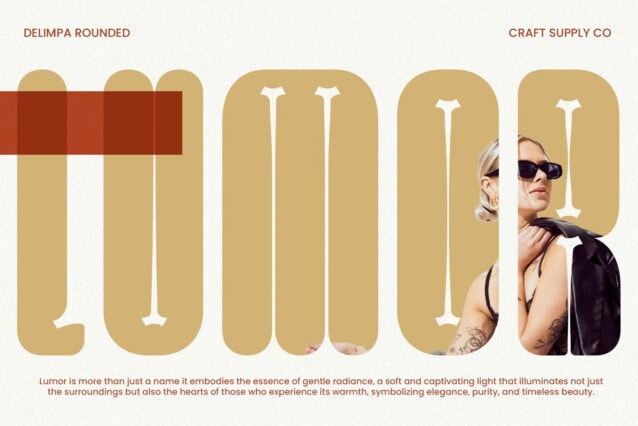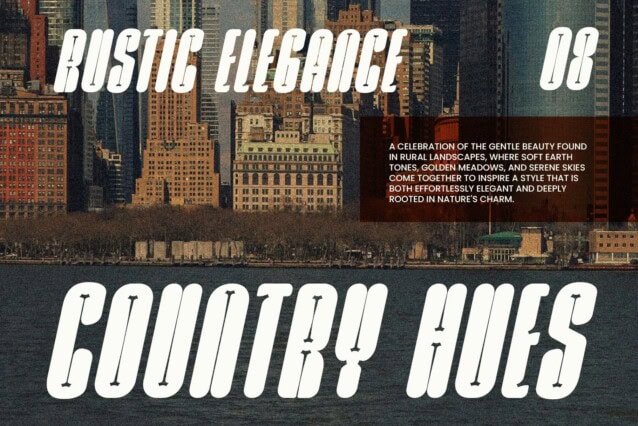
Delimpa Rounded Font
Delimpa Rounded Font is a modern sans serif font that combines boldness, space efficiency, and readability through its unique design. The inclusion of inktrap details—open spaces at the corners of the letters—enhances its legibility in both smaller sizes and dense print conditions, making it ideal for high-impact designs where clarity is key. This functional feature ensures that the font maintains its sharp, clear appearance even in challenging environments, such as posters, websites, or mobile applications.